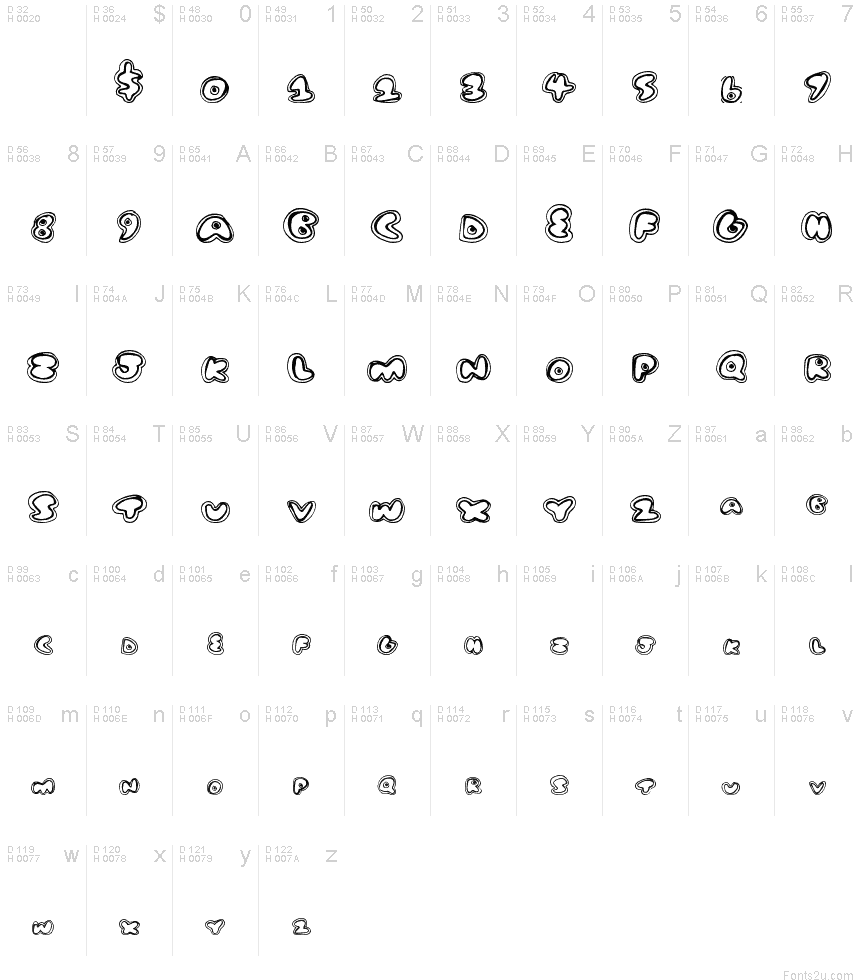
Tug Boat, from Xerographer Fonts, is a free cartoon display font with inflated, rubbery letterforms and lively uneven proportions. Thick double contours make every character feel drawn and dimensional. Small inner marks resemble highlights on shiny balloons.
The balloon-like shapes can become part of cheerful illustrations on children's packaging, party posters, game graphics, and novelty merchandise. Its bouncy outlines are especially suited to young audiences and brands built around toys, sweets, or lighthearted entertainment.